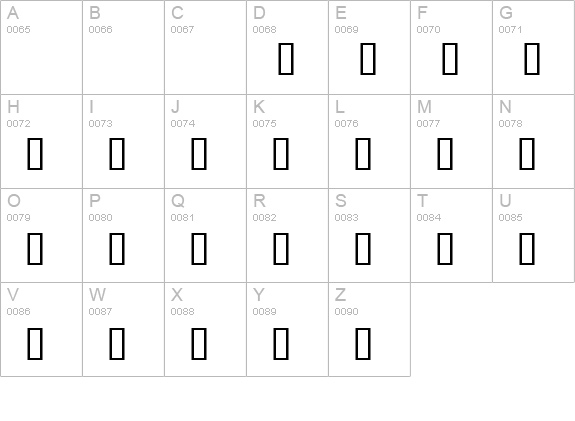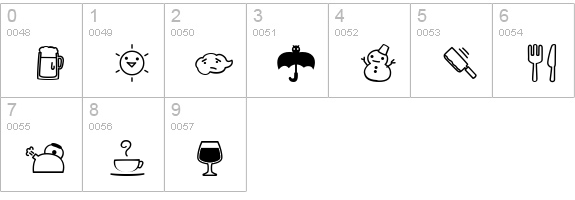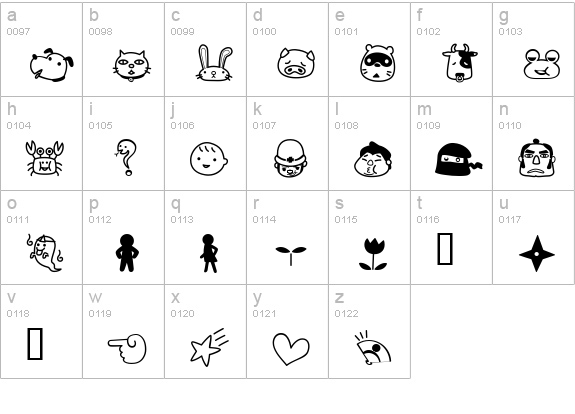
Rakugaki Font Details
Introducing Rakugaki, a whimsical and playful font that will add a touch of creativity to your designs. With its hand-drawn style and imperfect lines, this font captures the essence of doodles and illustrations, making it perfect for projects that require a casual and artistic vibe. Rakugaki is not just visually appealing, but it also offers a wide range of characters and glyphs, ensuring that you have everything you need to bring your ideas to life. Whether you're designing a logo, creating invitations, or working on a poster, this font will make your text stand out with its unique and charming look. One of the best things about Rakugaki is that it is free! Yes, you read that right. This incredible font is freely available to download at FontsMarket.com. Now you can add this delightful font to your collection without spending a penny. So why wait? Download Rakugaki today and let your imagination run wild. Whether you're a professional designer or someone who simply enjoys adding a touch of creativity to their everyday life, this font will undoubtedly become your go-to choice for all your design needs. Get ready to unleash your inner artist with Rakugaki!